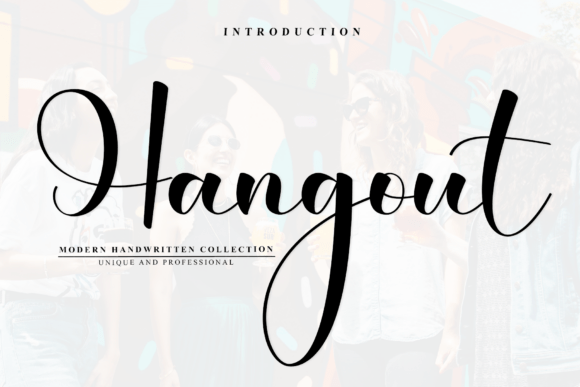
Have you ever been brainstorming with friends, sipping coffee, and scribbling down ideas on a whiteboard? The creative process can be a beautiful thing, full of laughter, excitement, and possibility. But what happens when you need to turn those ideas into something tangible? That’s where the right font comes in.
Enter the Hangout Font, a stylish and modern handwritten script that captures the essence of creativity and friendship. This beautiful font is perfect for invitations, logos, branding, social media posts, and lifestyle projects. Its flowing strokes and smooth curves create a natural, authentic feel that’s hard to resist. Whether you’re a seasoned designer or a DIY enthusiast, Hangout Font is a valuable addition to your toolkit.
Hangout Font Key Features
- Unique Characteristics: Hangout Font features a unique blend of modern and playful elements, making it perfect for creative projects, such as branding, advertising, and digital media.
Hangout Font Review
As a designer, I’ve had the chance to play around with Hangout Font, and here’s my honest take.
- Unique Character: Hangout Font has a distinct and playful feel to it, which can add a lot of personality to designs.
- Legibility: Despite its quirky nature, the font is surprisingly easy to read, making it suitable for a wide range of applications.
- Flexibility: Hangout Font comes in multiple styles, from casual to formal, allowing designers to choose the perfect fit for their project.
- Limited Customization: While Hangout Font offers multiple styles, it may not be as customizable as some other fonts, which can be a limitation for designers who want to fine-tune their designs.
- Not Suitable for Formal Settings: Hangout Font’s playful nature makes it less suitable for formal or professional applications, where a more traditional font may be preferred.
Overall, Hangout Font is a fun and versatile font that can add a lot of character to designs. However, its limitations should be taken into consideration when choosing the right font for a project.
Hangout Font is perfect for creating eye-catching headings, titles, and captions. Use it to add a touch of personality to your designs and make them stand out.
Some common use cases for Hangout Font include:
- Social media graphics and ads
- Blog post headings and titles
- Presentations and slides
- Marketing materials and flyers